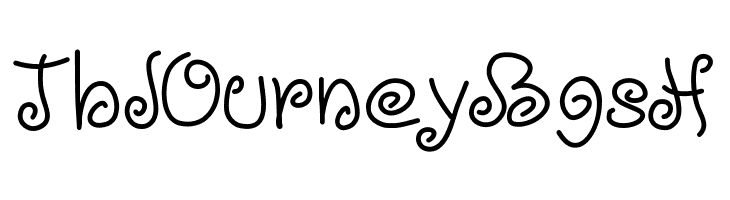
A whimsical collection of heart-themed decorative elements with varied designs.
A whimsical, looping font with playful curls and swirls.
A bold, brush-style font with a lively, hand-drawn appearance.
A dynamic, handwritten-style font with a lively and informal appearance.
A bold, rounded handwritten font with a playful and casual style.
A narrow, handwritten font with a playful and informal style.
A playful, hand-drawn collection of arrows and symbols with a casual style.
A lively, handwritten script font with bold, rounded characters.
A dynamic, handwritten font with an oblique, energetic style.